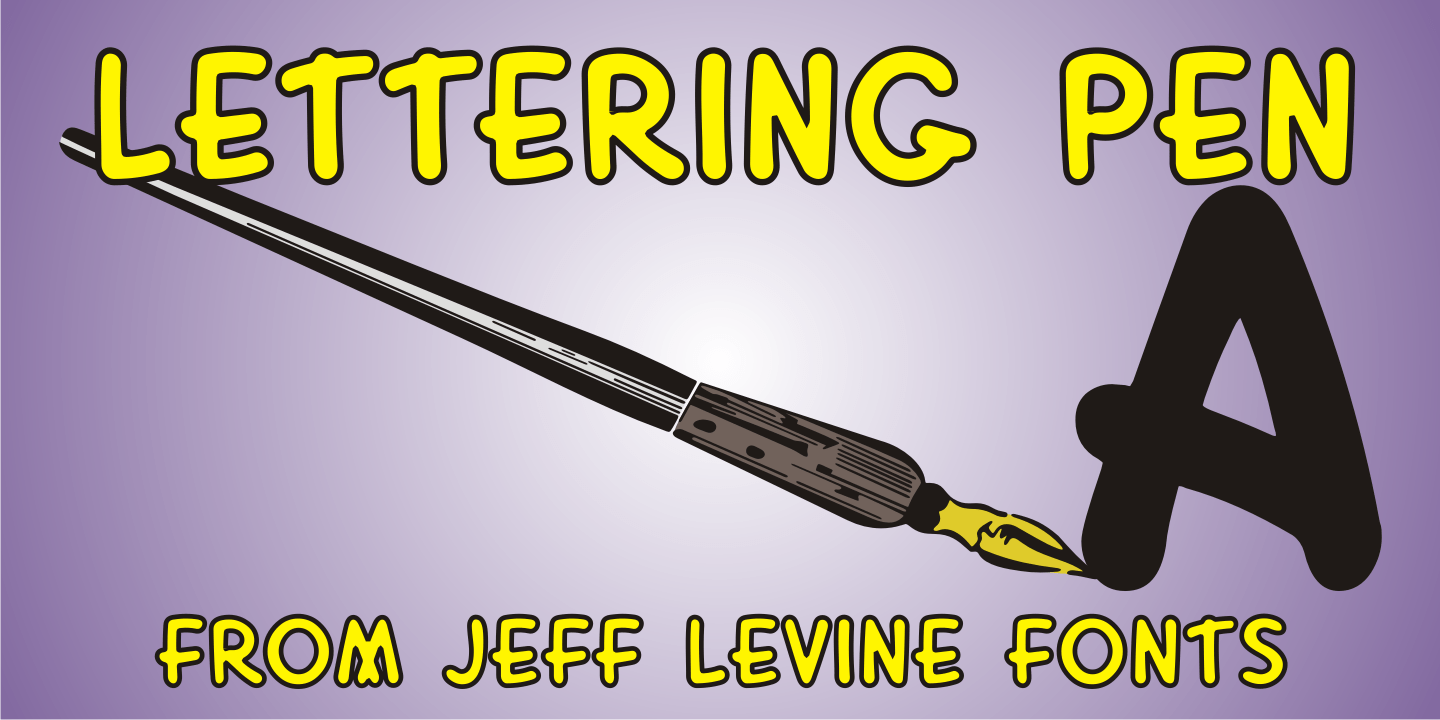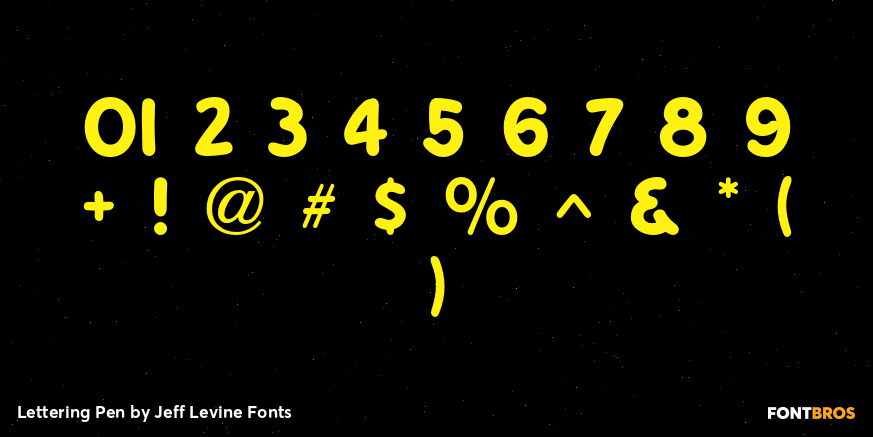
Lettering Pen
The rounded hand lettering for the circa-1920s sheet music title 'I'm On My Way Back Home” inspired the font design for Lettering Pen JNL.
Lettering Pen by Jeff Levine Fonts